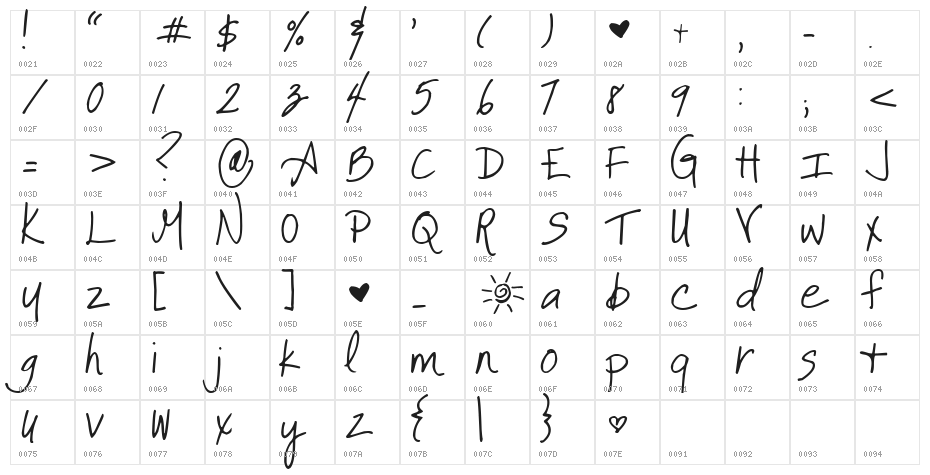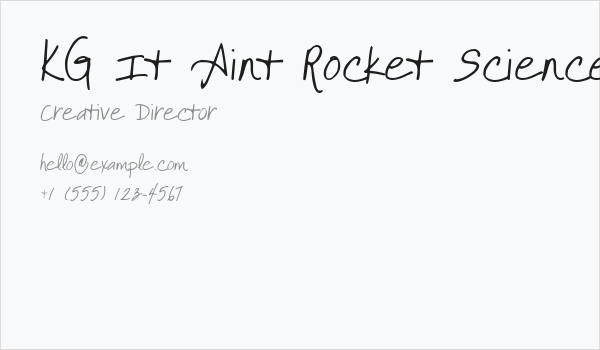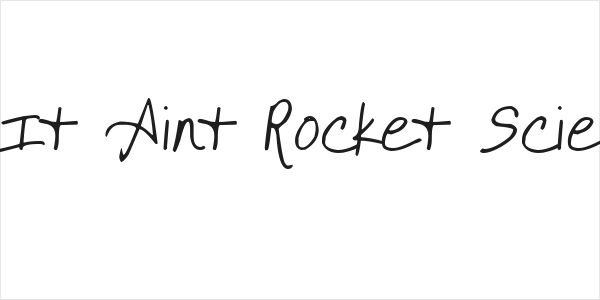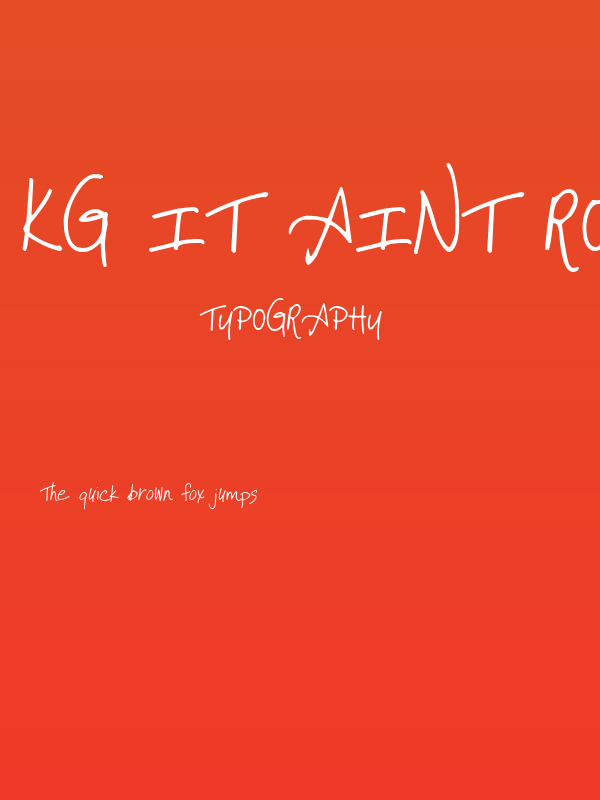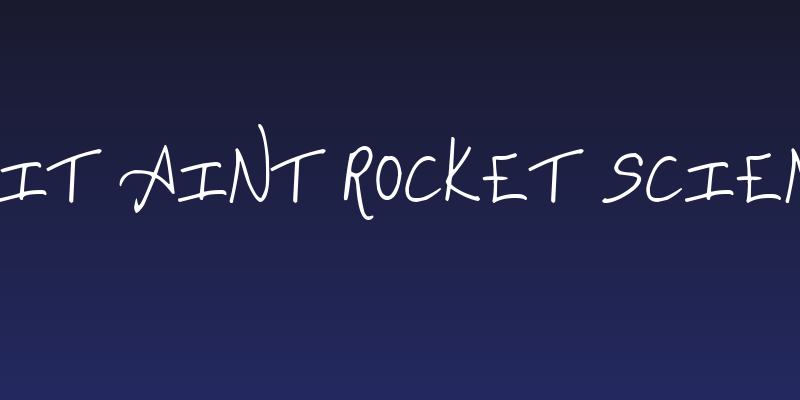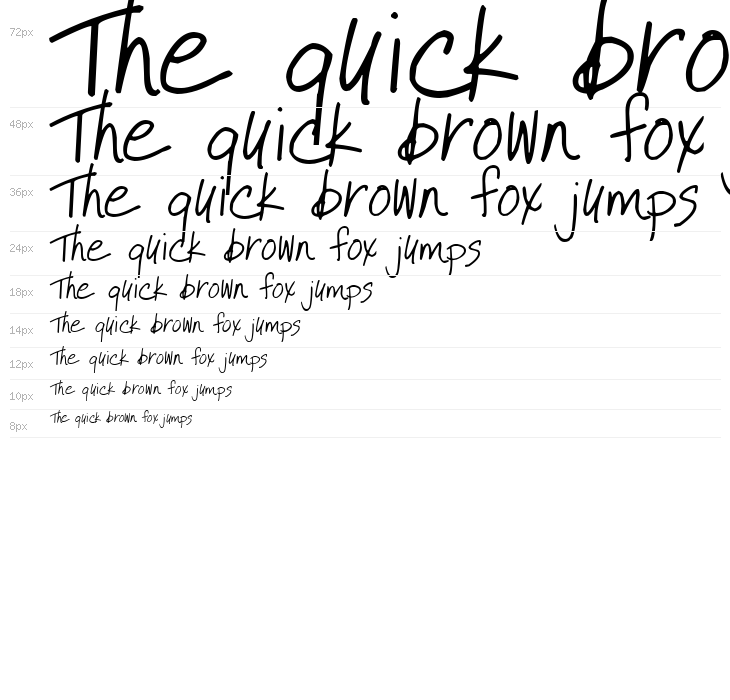
KG It Aint Rocket Science Font
KG It Aint Rocket Science Description
This font exudes a casual, handwritten style with a playful and informal appearance. The letters are unevenly sized and spaced, mimicking the natural flow of handwriting. The strokes are varied in thickness, adding a dynamic and lively feel. The uppercase letters are bold and prominent, while the lowercase letters maintain a consistent, flowing script. Numbers and special characters follow the same handwritten aesthetic, making the font versatile for creative projects. The overall look is approachable and friendly, perfect for adding a personal touch to any design.
| Use Case | Logos, Headlines, Informal Text |
| Proposed Projects | Ideal for greeting cards, personal invitations, casual branding, and social media graphics. |